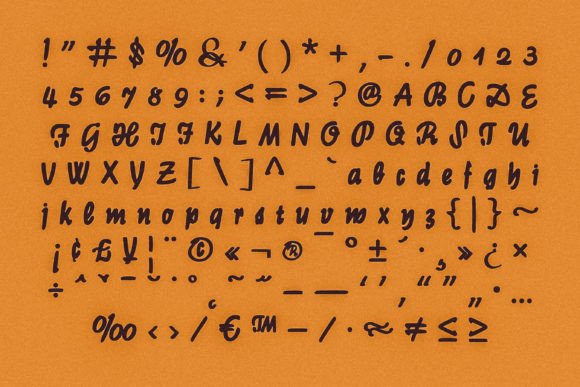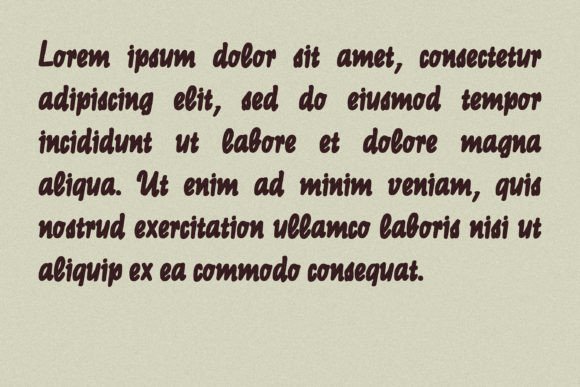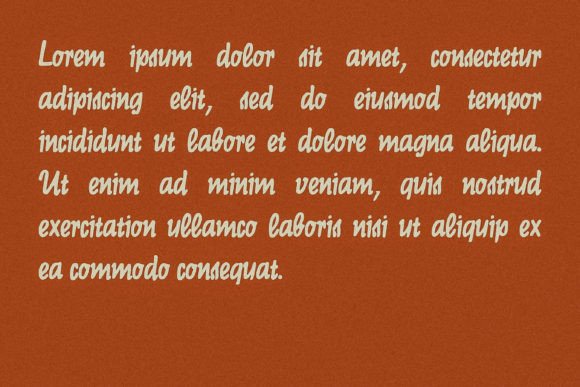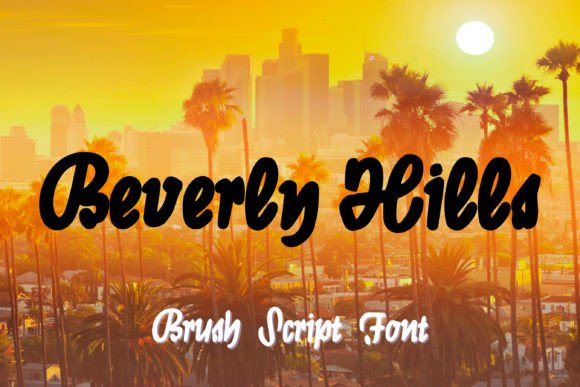
The Beverly Hills Font: Elevate Your Designs with Elegance
Have you ever been in the middle of a design project, and suddenly, you’re stuck on finding the perfect font? I recall a recent experience where I was working on a branding project for a luxury client, and I just couldn’t find a font that screamed elegance and sophistication. That’s when I stumbled upon the Beverly Hills font, a handwritten brush script font that completely transformed my design. In this article, I’ll share my experience with the Beverly Hills font, its features, and how to make the most of it in your designs.
My Experience with Beverly Hills Font
As a designer, I’m always on the lookout for fonts that can add a touch of personality to my projects. When I first used the Beverly Hills font, I was immediately drawn to its luxurious and elegant feel. It’s perfect for designs that require a high-end look, such as branding, packaging, and advertising materials.
- ✨ The Beverly Hills font has a unique, handwritten brush script style that adds a touch of elegance to any design.
- ✅ It’s incredibly versatile and can be used for a wide range of projects, from luxury branding to wedding invitations.
- 💫 The font comes with a range of OpenType features, including glyphs and stylistic alternates, which allow for endless creative possibilities.
While the Beverly Hills font is an excellent choice for many designs, there are a few things to keep in mind:
- 🤔 The font can be a bit challenging to read at smaller sizes, so it’s best used for headlines or titles.
- ⚠️ Some of the glyphs and special characters can be a bit finicky, requiring some experimentation to get the desired look.
The Designer Inspiration Behind Beverly Hills Font
The Beverly Hills font was inspired by the luxury and glamour of the famous California city. The font’s designer wanted to capture the essence of old-school Hollywood glamour and translate it into a modern, digital font. The result is a font that’s perfect for designs that require a touch of sophistication and elegance.
| Font Name | Beverly Hills Font |
| Author | The Tenacious Type Studio |
Q: What type of projects is the Beverly Hills font best suited for?
A: The Beverly Hills font is perfect for luxury branding, packaging, advertising materials, and any design that requires a high-end look.
Q: Is the Beverly Hills font easy to read?
A: The Beverly Hills font can be a bit challenging to read at smaller sizes, so it’s best used for headlines or titles.
Q: Does the Beverly Hills font come with OpenType features?
A: Yes, the Beverly Hills font comes with a range of OpenType features, including glyphs and stylistic alternates.